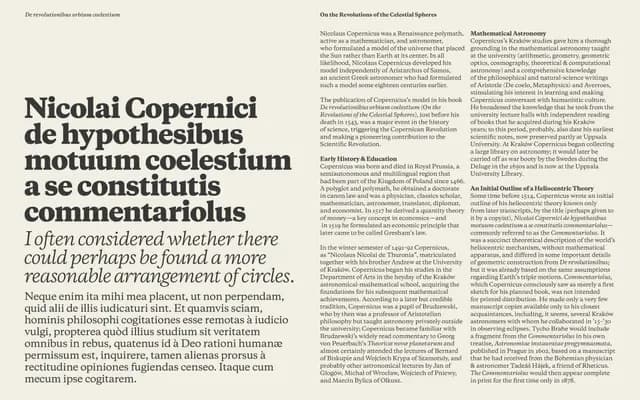
Copernicus
Labor and Wait · 2009
A 21st-century reworking of the Plantin tradition, tracing its lineage through Robert Granjon's 1560s designs and Monotype's 1910s revival by Frank Hinman Pierpont.
Originally released in 2009 as Galaxie Copernicus, the family takes Plantin as its starting point but refuses strict historical reconstruction, instead filtering the wide, sturdy character of the original through contemporary type-drawing sensibilities. Six weights from Book to Heavy each carry matching italics, giving the family a full range for text-setting. The design philosophy, guided in part by early-music performance thinking, treats the past as material rather than blueprint.
Copernicus is rooted in the Plantin tradition, itself derived from Robert Granjon's 16th-century designs, placing it firmly in the old-style or Garalde category. It is wider and sturdier than most Renaissance revivals, with a deliberately modern interpretation of the source material.